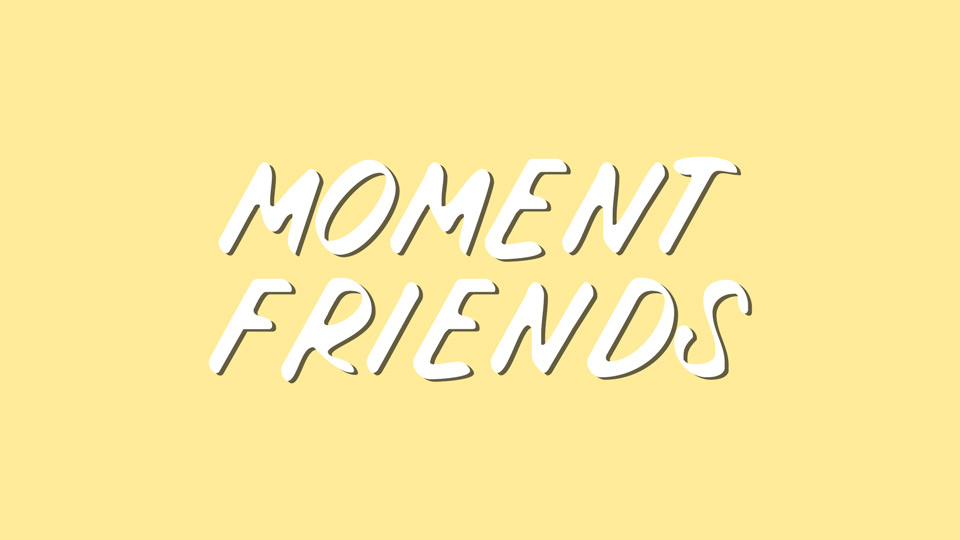
Download Moment Friends font, a casual hand lettered typeface with simple and organic lines. Whether it’s for comics, notes, design crafts, Moment Friends font will bring your creative ideas to life with a naturally beautiful look.